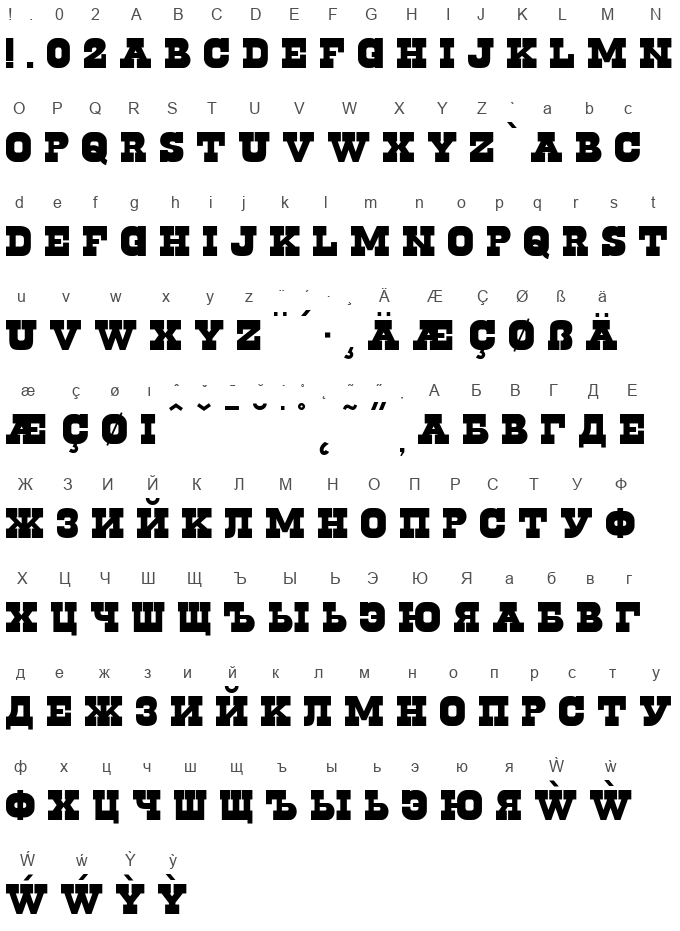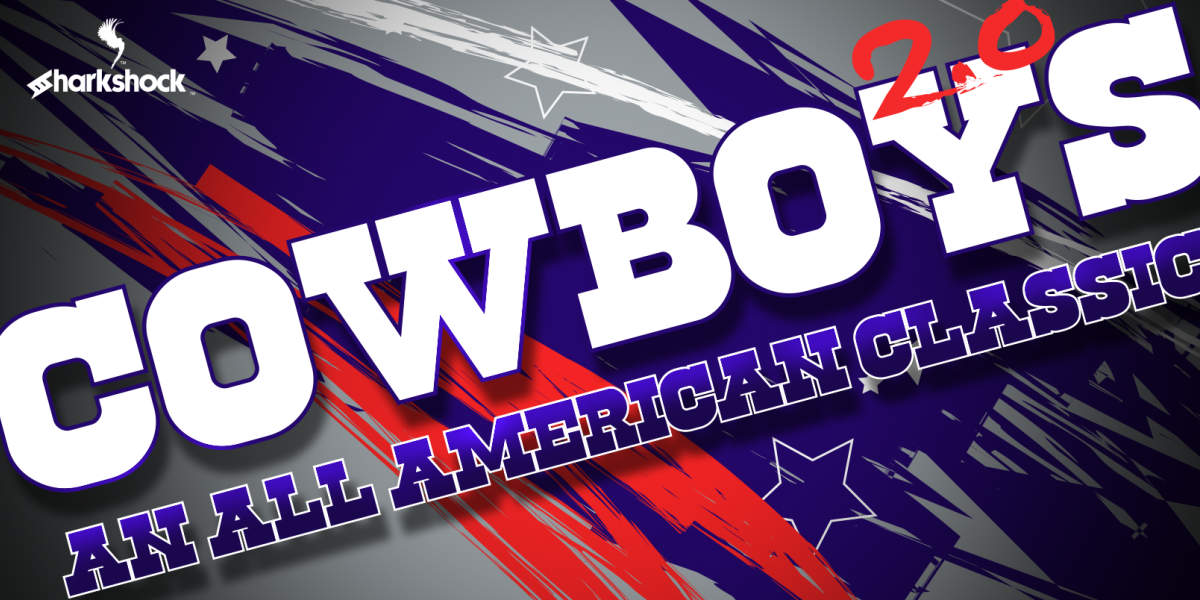
The Cowboys 2.0 font is a bold slab-serif typeface explicitly designed in the Western style. It is a titling display font intended for applications such as t-shirts, logos, or posters. As a display font, it is all-caps or initial-caps. It is considered a modern take on the old Western fonts. The font family includes both a Regular style and an Outline version. It is also categorized under sports due to its association with team and collegiate aesthetics.
Cowboys 2.0